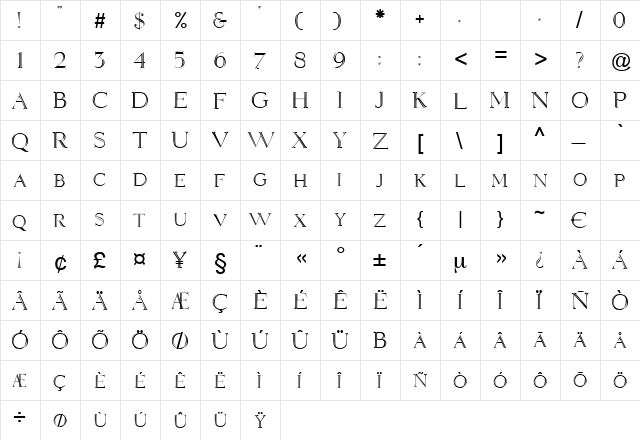
Euboea Regular
Design Context for Euboea Typeface
Euboea takes a measured approach to typography — its balanced proportions and neutral character make it a reliable workhorse for both digital and print work.